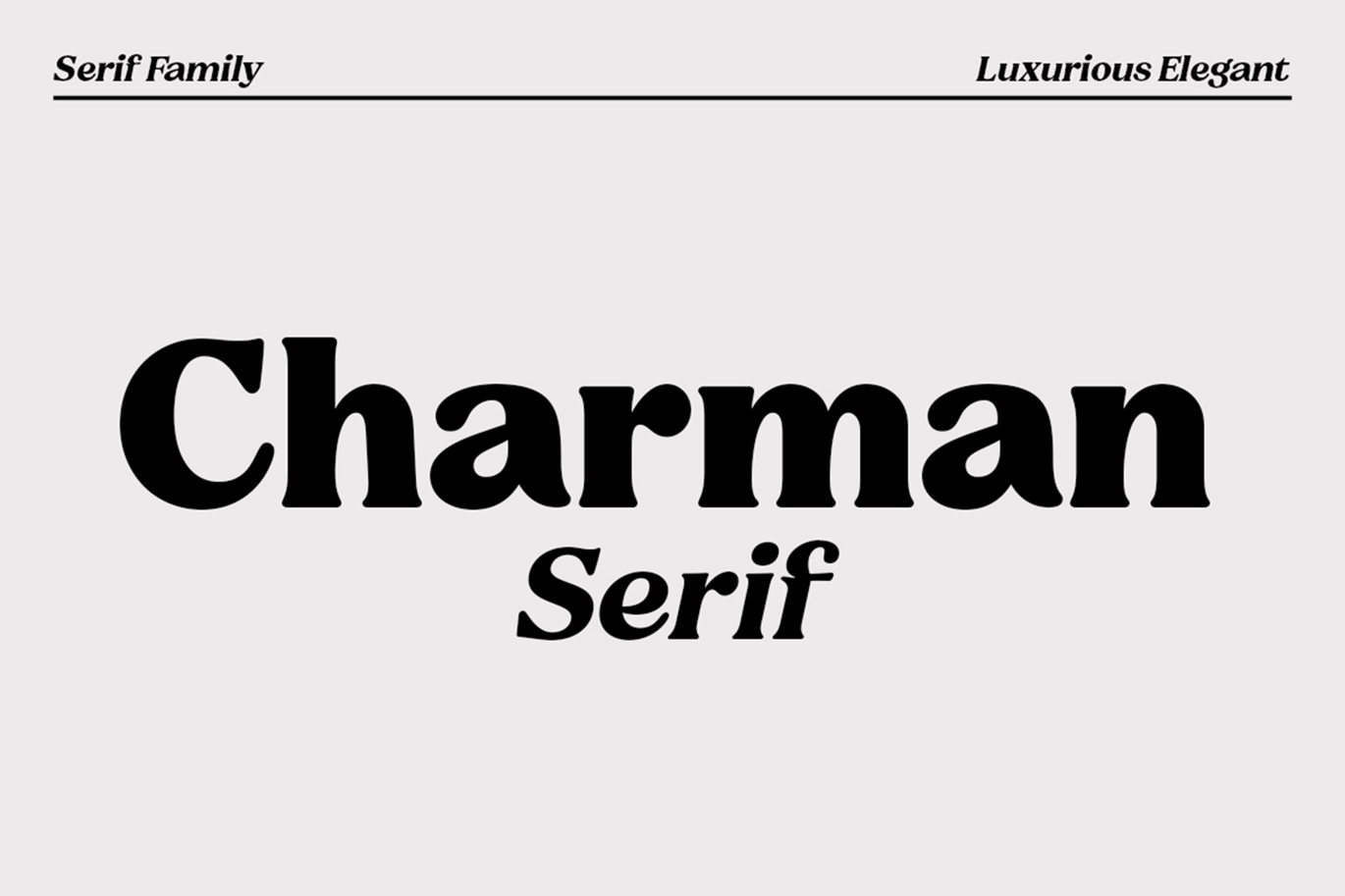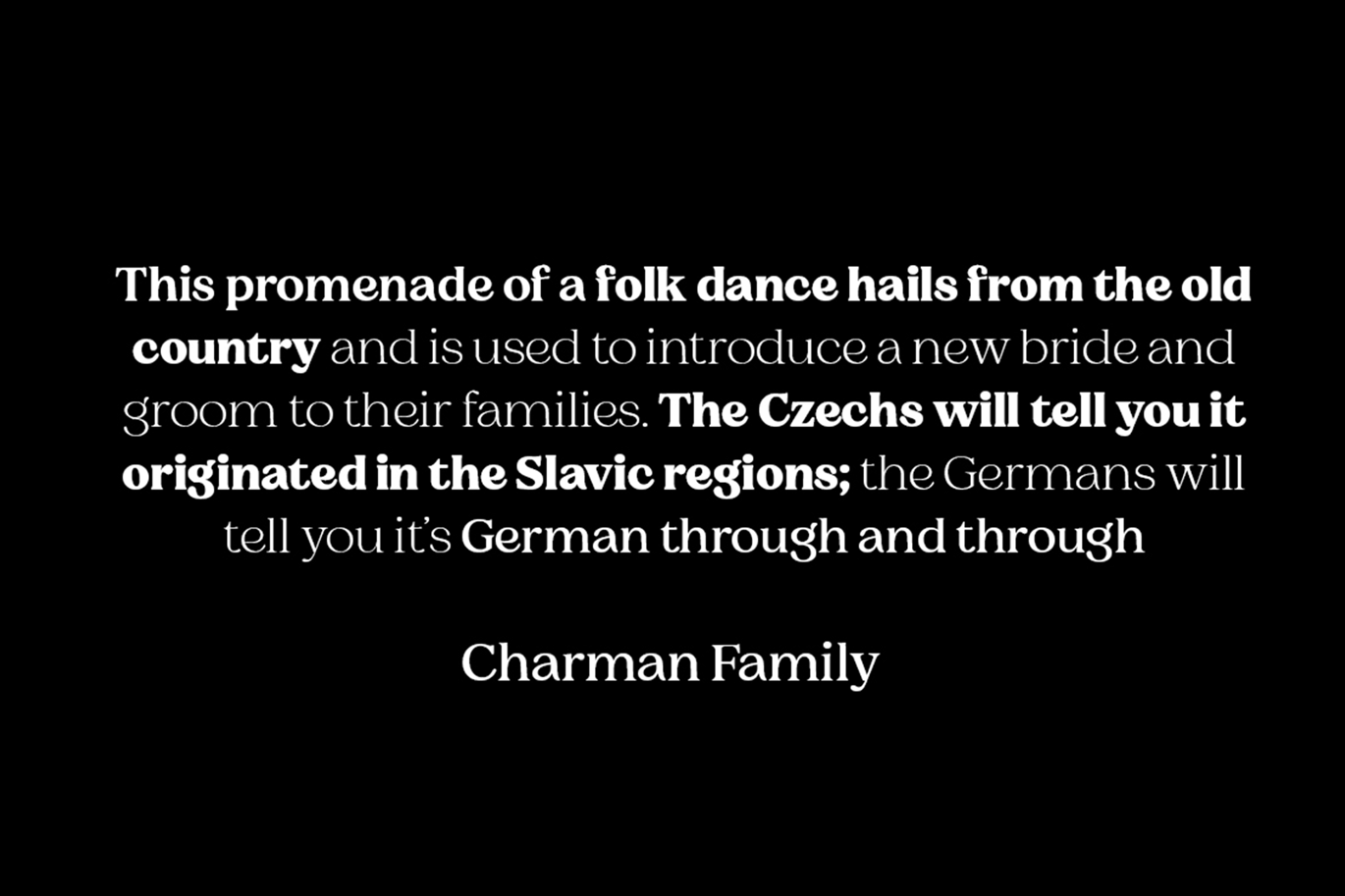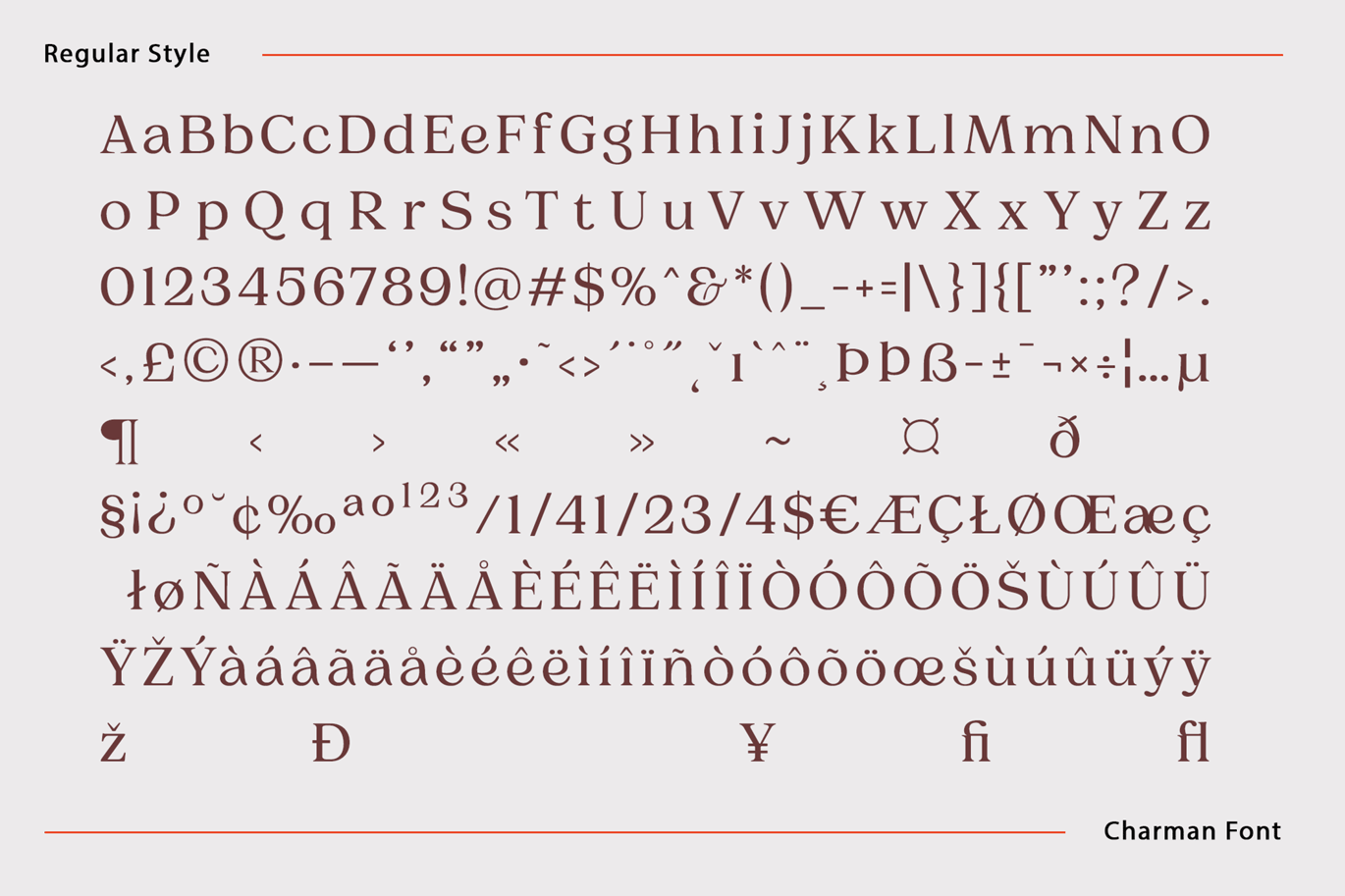
Charman Serif Font
Charman Serif Font is a versatile typeface ideal for various projects, including logos, branding, posters, blog headers, advertisements. The free version includes a full set of uppercase and lowercase letters, available in OTF format.